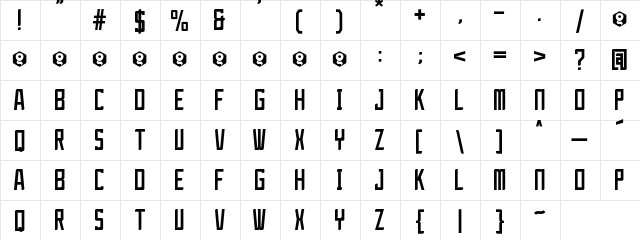
JerrySport Med uler Regular
Design Context for JerrySport Med uler Typeface
JerrySport Med uler brings high-energy athletic personality to the page — its confident, muscular forms are built for impact.
Built for sports team identities, athletic apparel, event posters, and high-energy promotional material.
Pro Tip: JerrySport Med uler thrives on contrast — try it large, bold, and tight against a clean background for maximum visual impact.